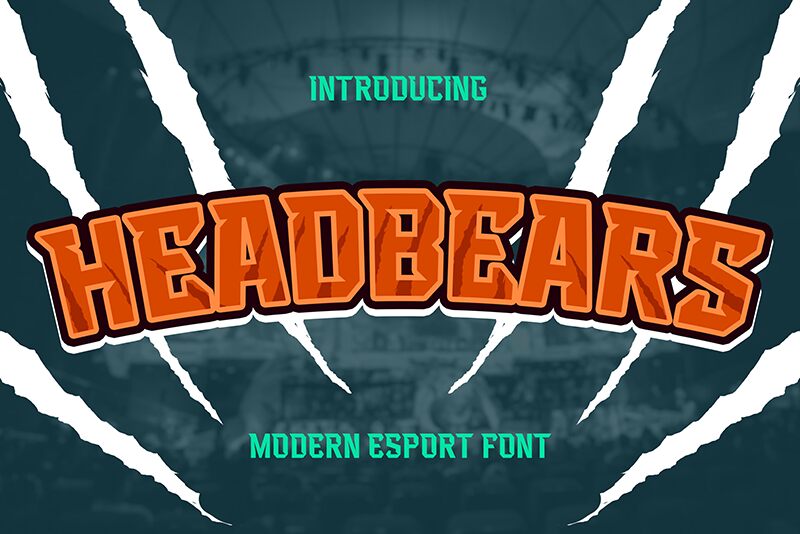
headbears
Headbears is a stunning display font designed by Almarkhatype that's perfect for projects in need of a bold, attention-grabbing touch. Its semi-bold weight and condensed width make it ideal for headlines, posters, logos, and more. With its unique style and powerful presence, Headbears is sure to leave a lasting impression on your audience. Whether you're creating a branding campaign or designing an eye-catching website, this typeface will elevate your project to the next level. So why settle for ordinary when you can have Headbears? Add it to your design arsenal today!